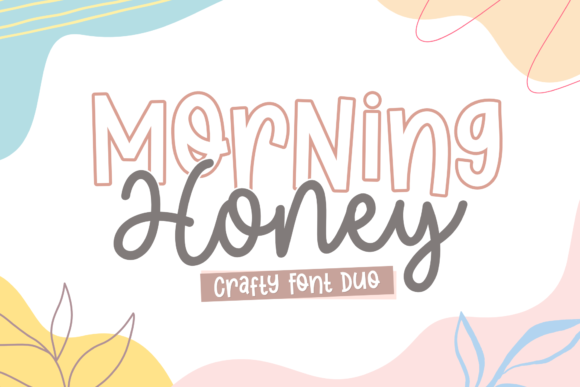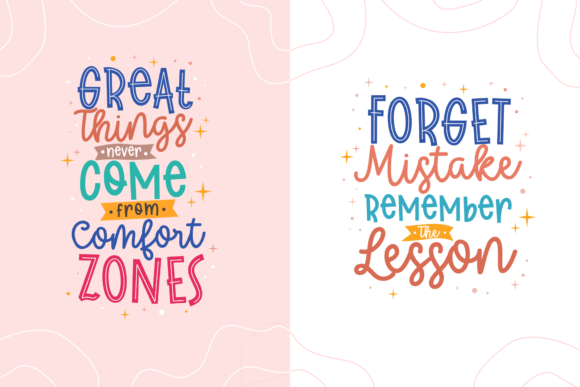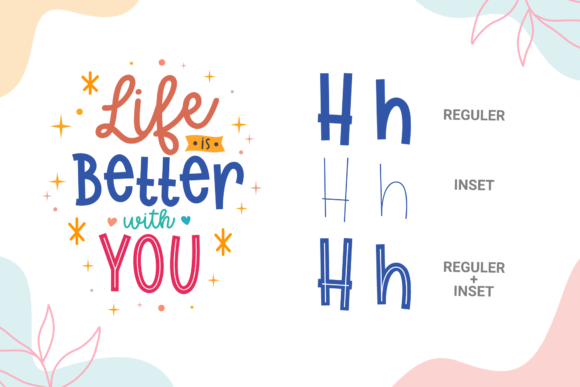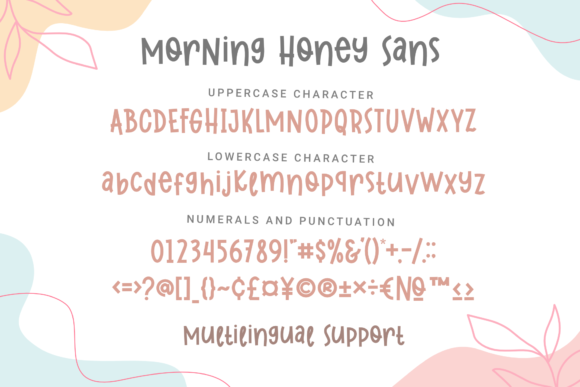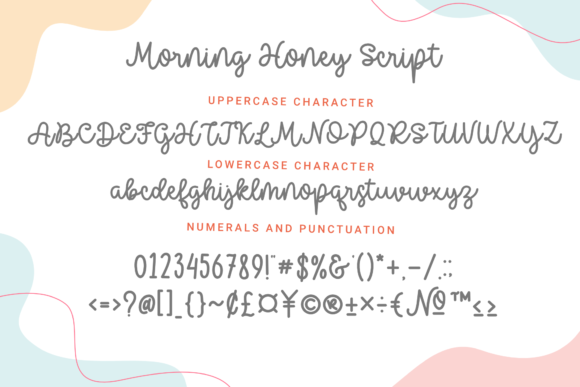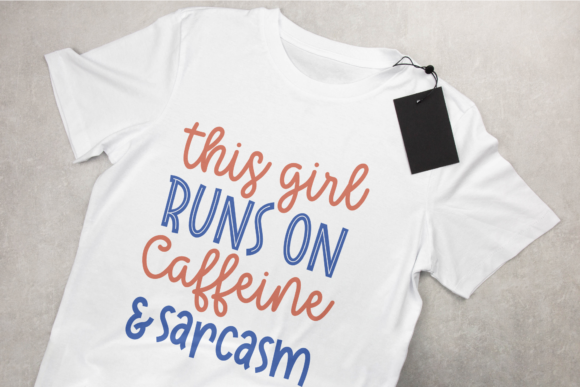
Morning Honey Duo Font
Morning Honey Duo is a sweet and versatile duo font (display and handwritten), perfect for all of your crafting projects. Whether you are using it for cartoon-related designs, children games, quotes, titles, brand names, book covers, posters, or just any creation that requires a touch of joy, this font is a great choice.